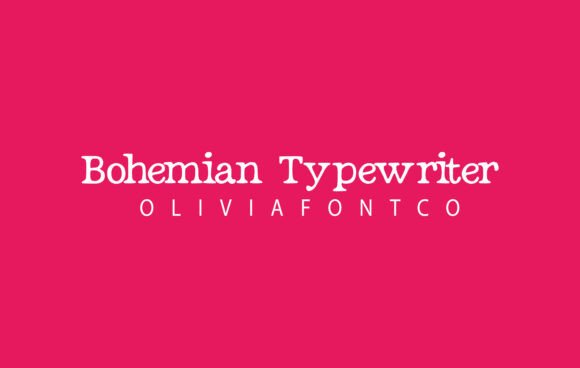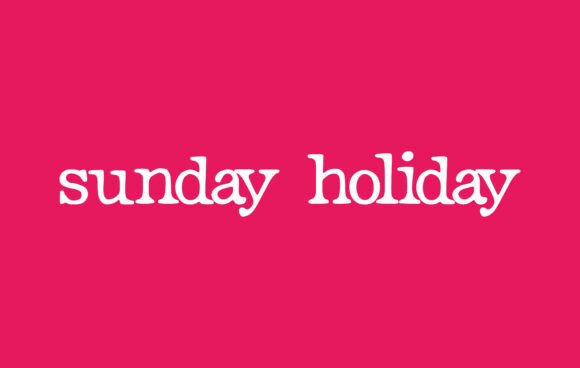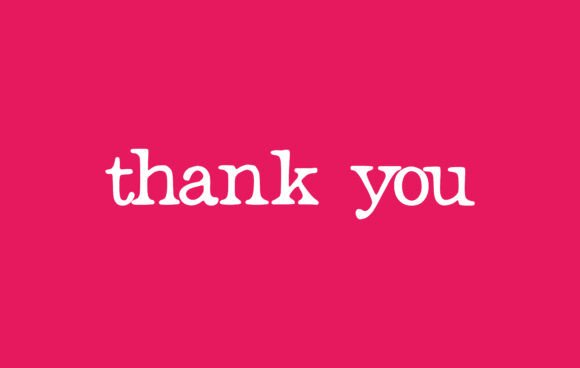
Bohemian Typewriter Font
About the Bohemian Typewriter Font
Presenting Bohemian Typewriter Font, a unique and stylish typeface that will make your work stand out. Bohemian Typewriter font is an authentic handwritten font with a romantic touch. Expertly designed to be a true favorite, this font has the potential to take your creative ideas to the highest level
Bohemian Typewriter excels in display applications such as headlines, short quotes, and branding elements where its handcrafted charm shines. It’s ideal for projects needing a romantic, slightly whimsical feel, like wedding invitations, stationery, or boutique branding. However, its informal nature makes it less suitable for large blocks of body text or user interfaces requiring high legibility.
Pairing it with a clean sans-serif like Open Sans for body text creates a pleasing contrast, balancing the Bohemian Typewriter’s playful energy with a sense of order. For a more luxurious feel, consider pairing it with a classic serif font like Garamond. Avoid pairing it with other highly decorative or script fonts, as this could overwhelm the design.
The font’s core personality is best described as romantic and playful, yet approachable. It evokes a sense of handmade authenticity and is well-suited for brands focusing on creativity, artistry, or handcrafted goods.
Bohemian Typewriter Font Usage Examples
Bohemian Typewriter Font Example